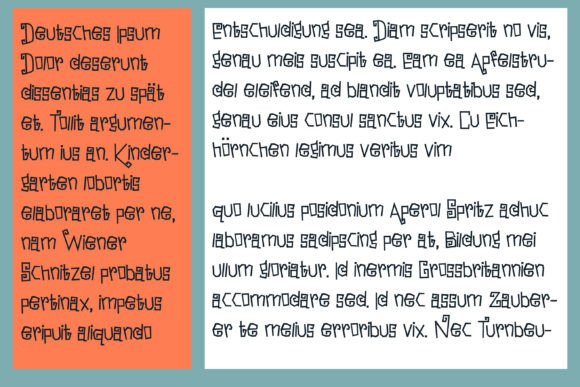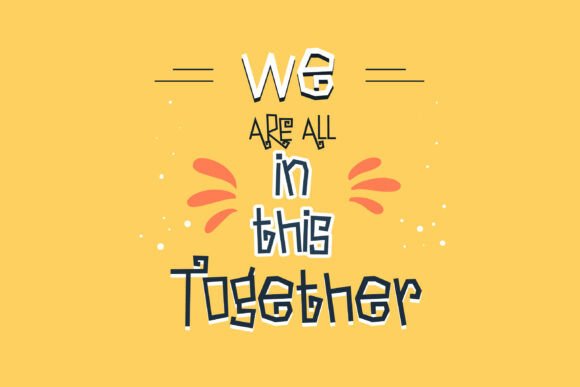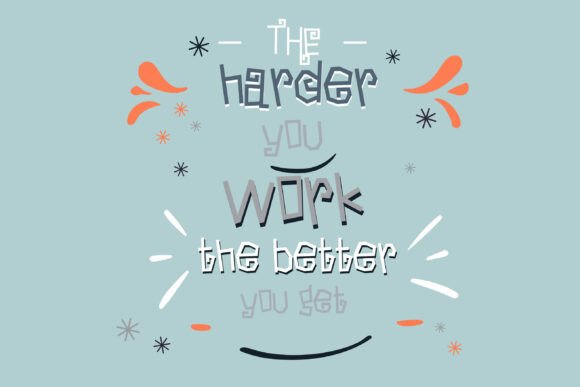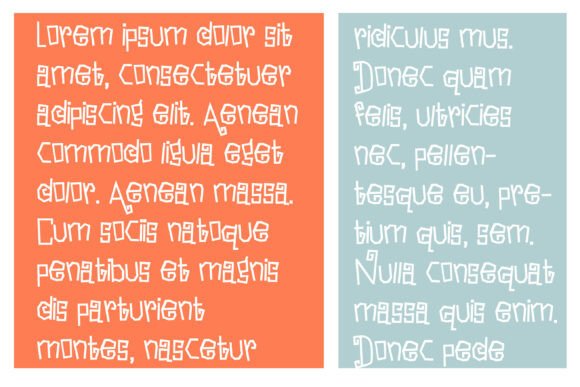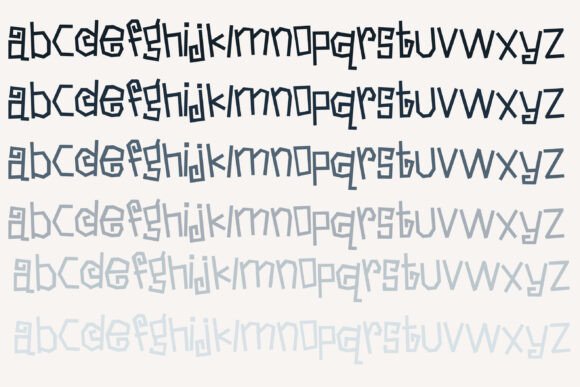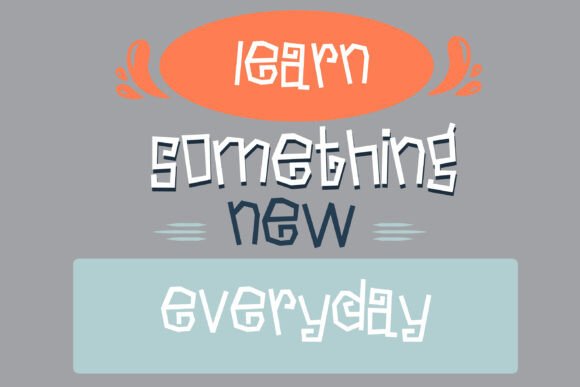
Bzonga Font: A Hand-Crafted Sans Serif for Creative Projects
In the world of typography, fonts play a crucial role in conveying the tone and personality of a design. For crafters, designers, and artists, finding the right font can make all the difference in bringing their creative projects to life. One such font that has gained popularity among designers is the Bzonga Font, a hand-crafted sans serif font that boasts boxy, rectangular lettering. In this article, we’ll delve into the world of Bzonga Font, exploring its features, uses, and benefits for designers and crafters.
What is Bzonga Font?
Bzonga Font is a hand-crafted sans serif font that features boxy, rectangular lettering. The font comes in two versions: light and bold, making it versatile for various design applications. As a hand-crafted font, Bzonga Font is designed to mimic the look of handwritten text, giving it a unique and personal touch. Hand-crafted fonts like Bzonga Font are often used for invitations, greeting cards, and other items where a personal touch is desired.
Characteristics of Hand-Crafted Fonts
Hand-crafted fonts, such as Bzonga Font, have several distinct characteristics that set them apart from other font styles. Some of these characteristics include:
- Unique lettering: Hand-crafted fonts feature unique lettering that is often irregular and imperfect, giving them a personal and human touch.
- Variations in line width: Hand-crafted fonts often have varying line widths, which add to their handmade feel.
- Expressive flair: Hand-crafted fonts can have an expressive, artistic flair that makes them perfect for designs that require a personal touch.
Uses of Bzonga Font
Bzonga Font is a versatile font that can be used for a variety of design projects, including:
- Invitations: Bzonga Font is perfect for creating invitations for special occasions, such as weddings, birthdays, and graduations.
- Greeting cards: The font’s hand-crafted look makes it ideal for creating greeting cards for holidays, special occasions, and everyday expressions.
- Branding: Bzonga Font can be used for branding projects, such as logos, business cards, and letterheads, to add a personal touch.
- Digital design: The font can be used for digital designs, such as social media graphics, blog posts, and website headers.
Benefits of Using Bzonga Font
Using Bzonga Font in your design projects offers several benefits, including:
- Unique look: Bzonga Font’s hand-crafted look sets it apart from other fonts, making it perfect for designs that require a personal touch.
- Versatility: The font comes in two versions (light and bold), making it versatile for various design applications.
- Easy to read: Despite its handmade look, Bzonga Font is easy to read, making it perfect for body text and headings.
- Time-saving: Using a pre-made font like Bzonga Font saves time and effort, as you don’t have to create a font from scratch.
Tips for Using Bzonga Font
To get the most out of Bzonga Font, here are some tips to keep in mind:
- Use it sparingly: Use Bzonga Font sparingly to add emphasis to specific parts of your design.
- Pair it with other fonts: Pair Bzonga Font with other fonts to create a unique and visually appealing design.
- Experiment with colors: Experiment with different colors to find the perfect combination that complements your design.
Bzonga Font is a hand-crafted sans serif font that offers a unique and personal touch to design projects. With its boxy, rectangular lettering and light and bold versions, it’s perfect for invitations, greeting cards, branding, and digital design. By understanding the characteristics, uses, and benefits of Bzonga Font, designers and crafters can create stunning designs that stand out from the crowd.